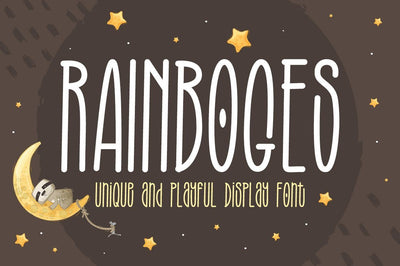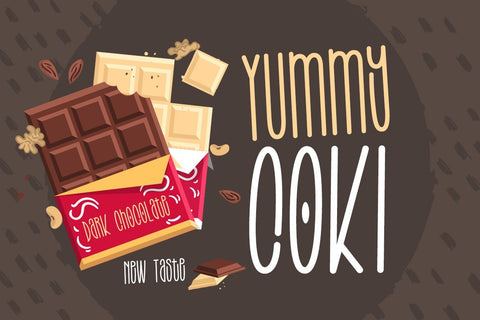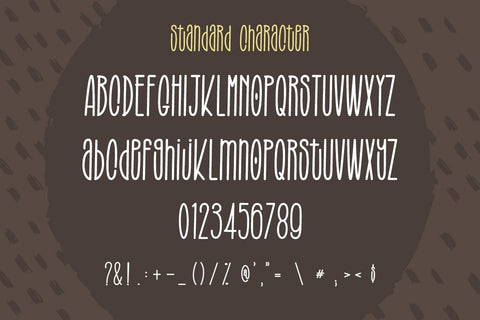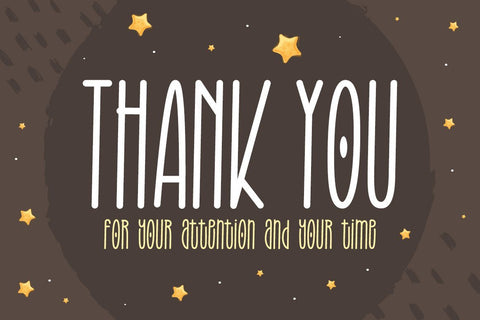
Rainboges - Crafting Font
Introducing Rainboges Font. A unique and playful display font. It has a unique and different style and will give your design a fun touch.
Rainboges would be perfect for logos & branding, photography, watermark, social media posts, advertisements, invitation, product designs, label, stationery, wedding designs, product packaging, special events or anything that need handwriting taste.